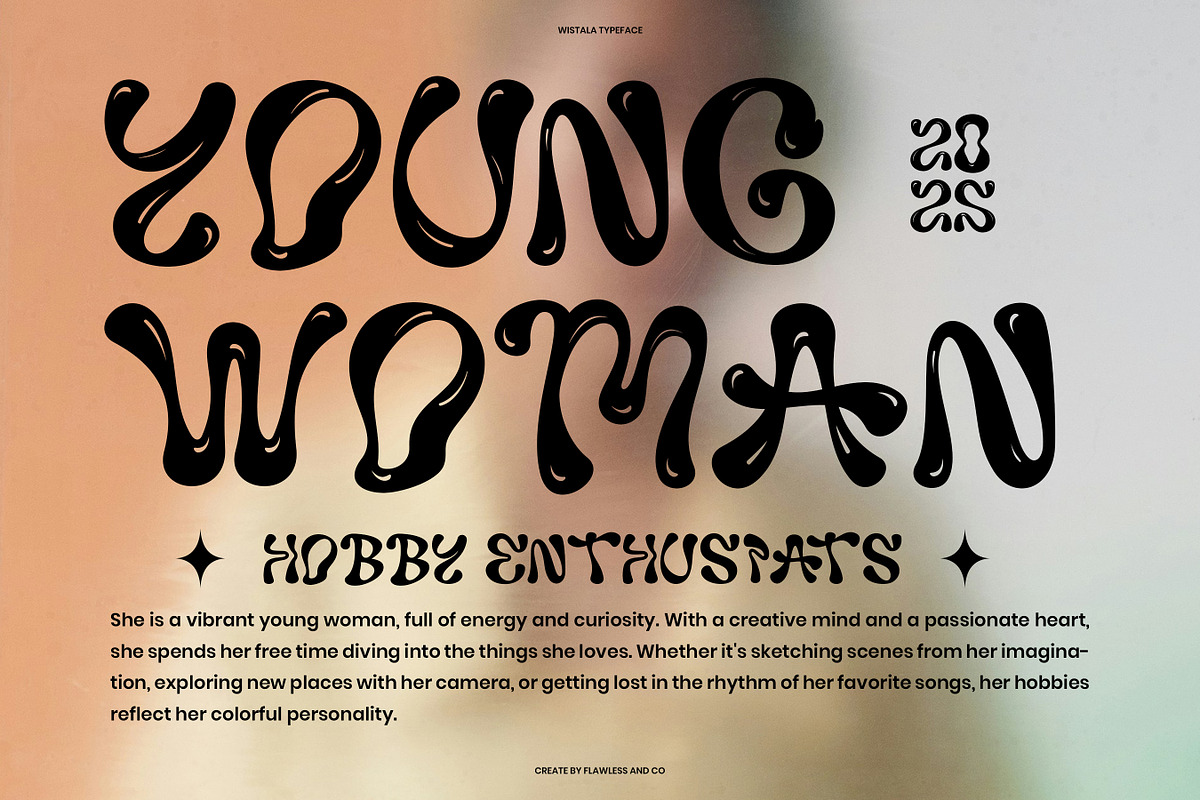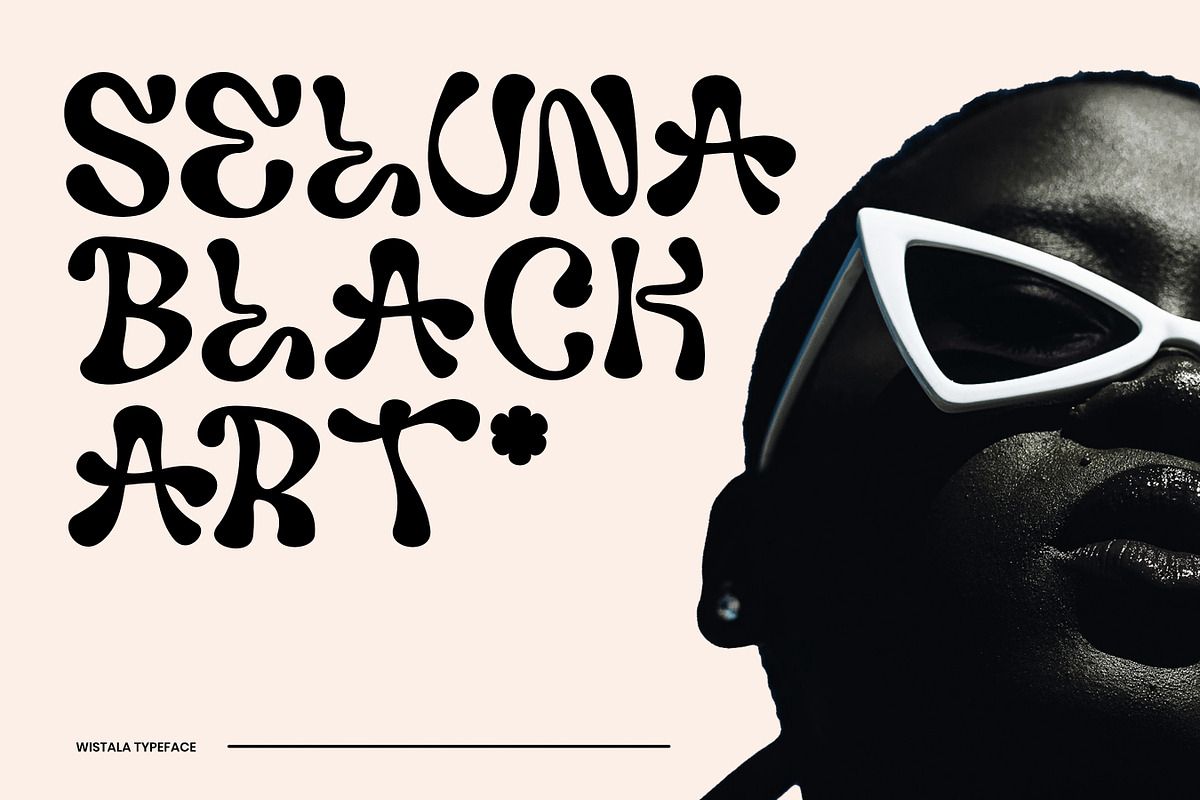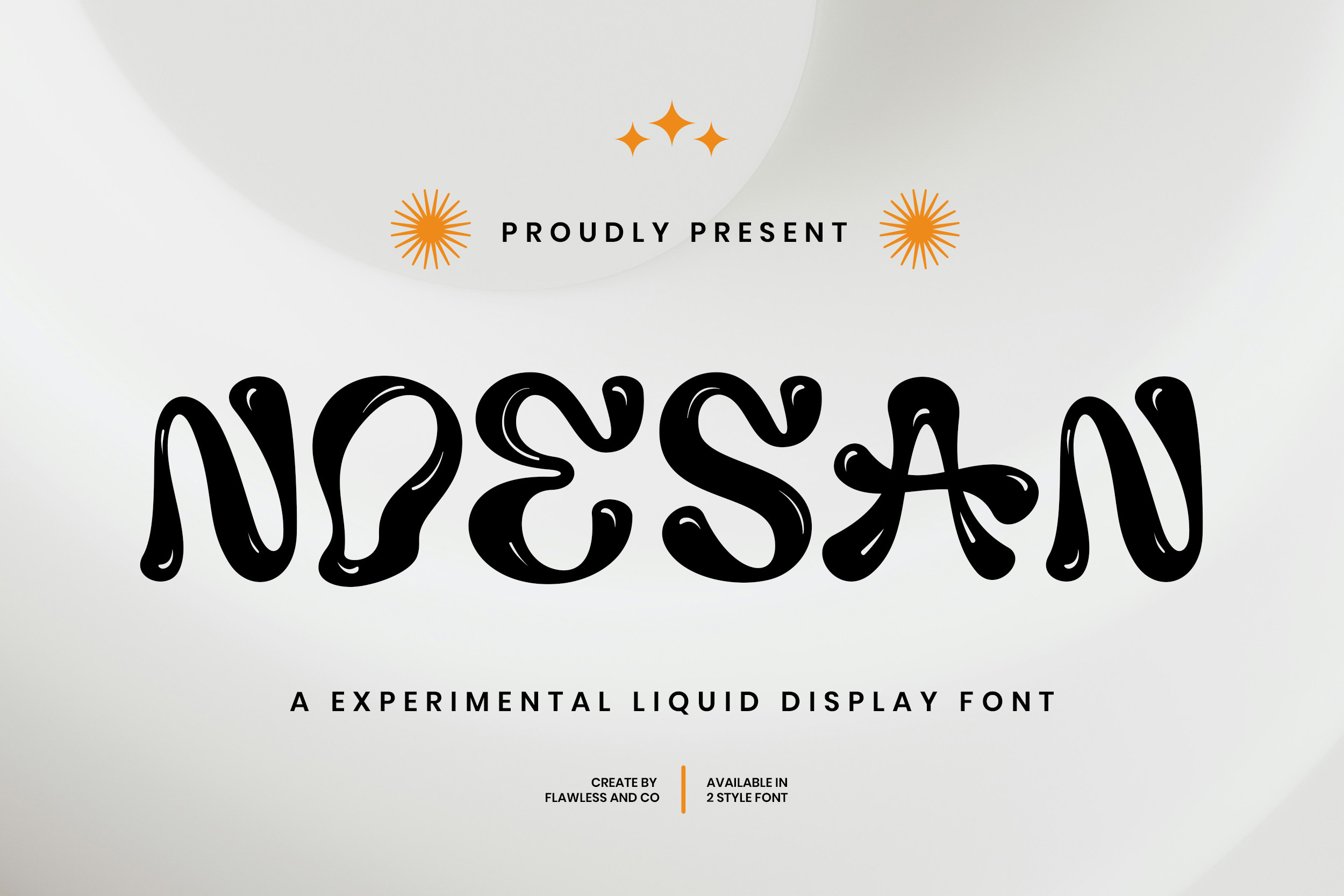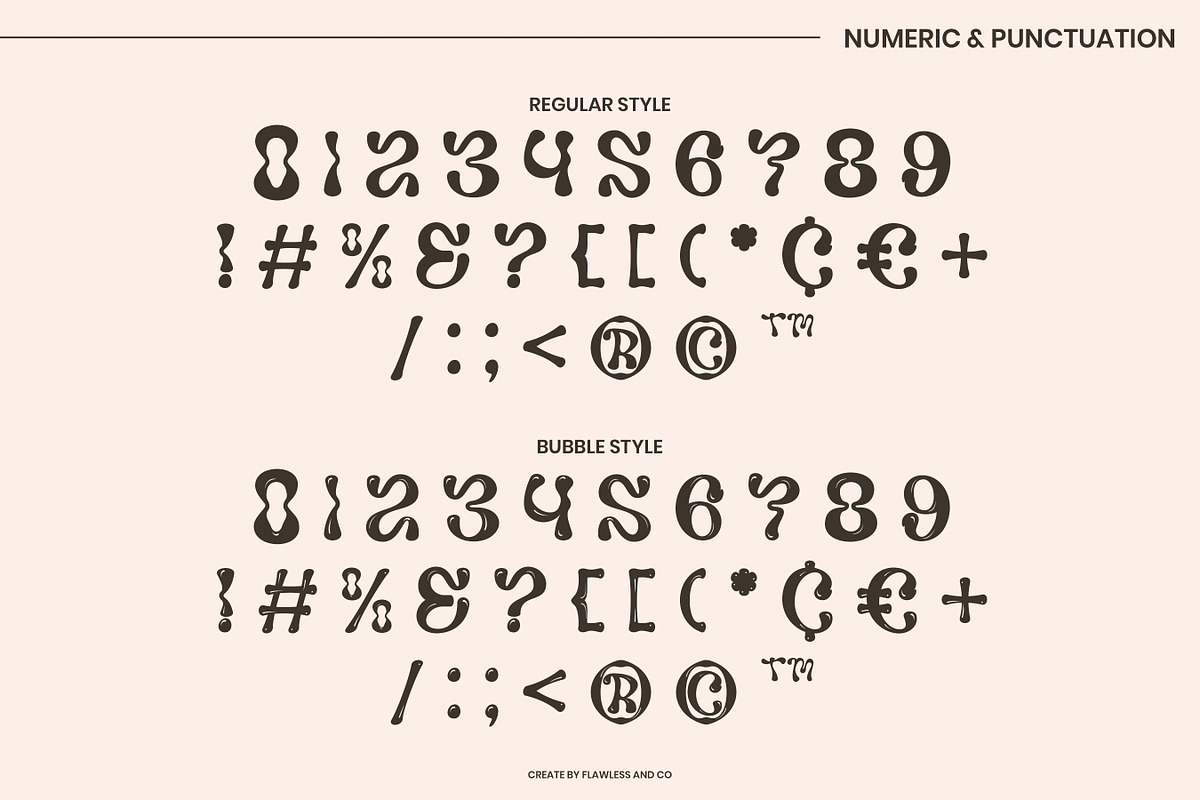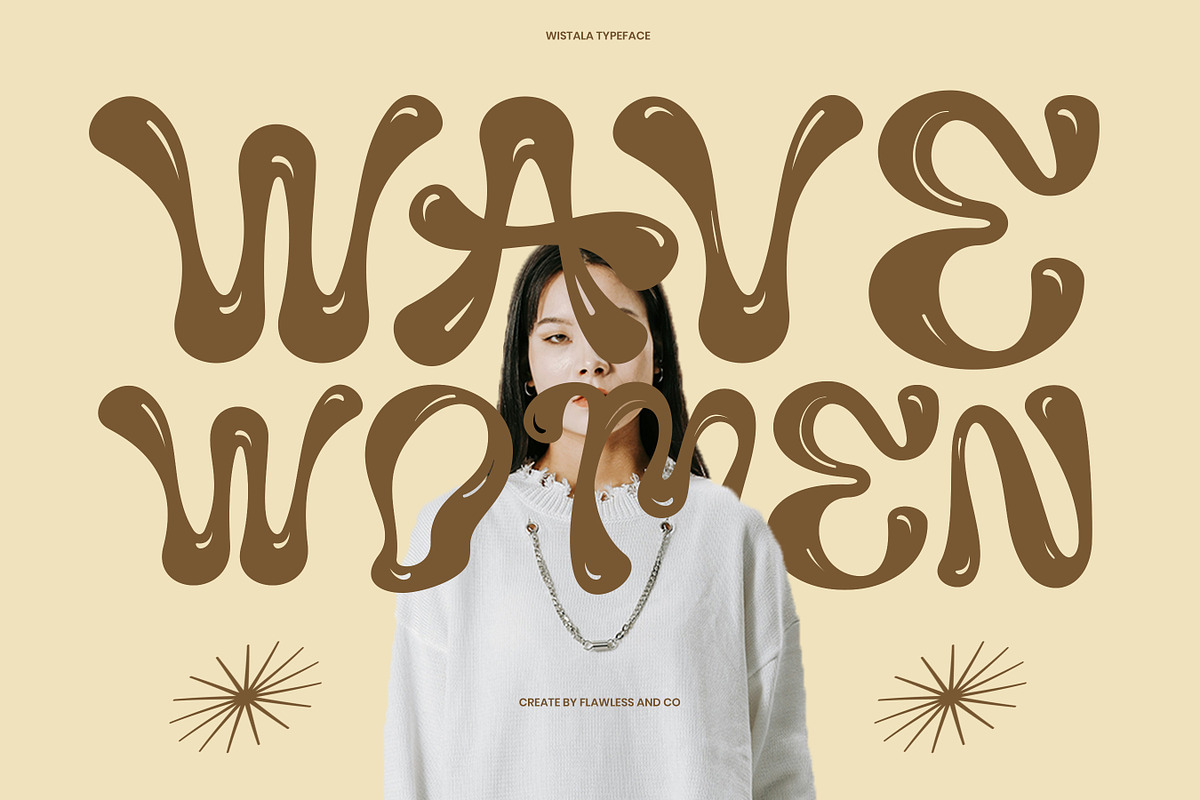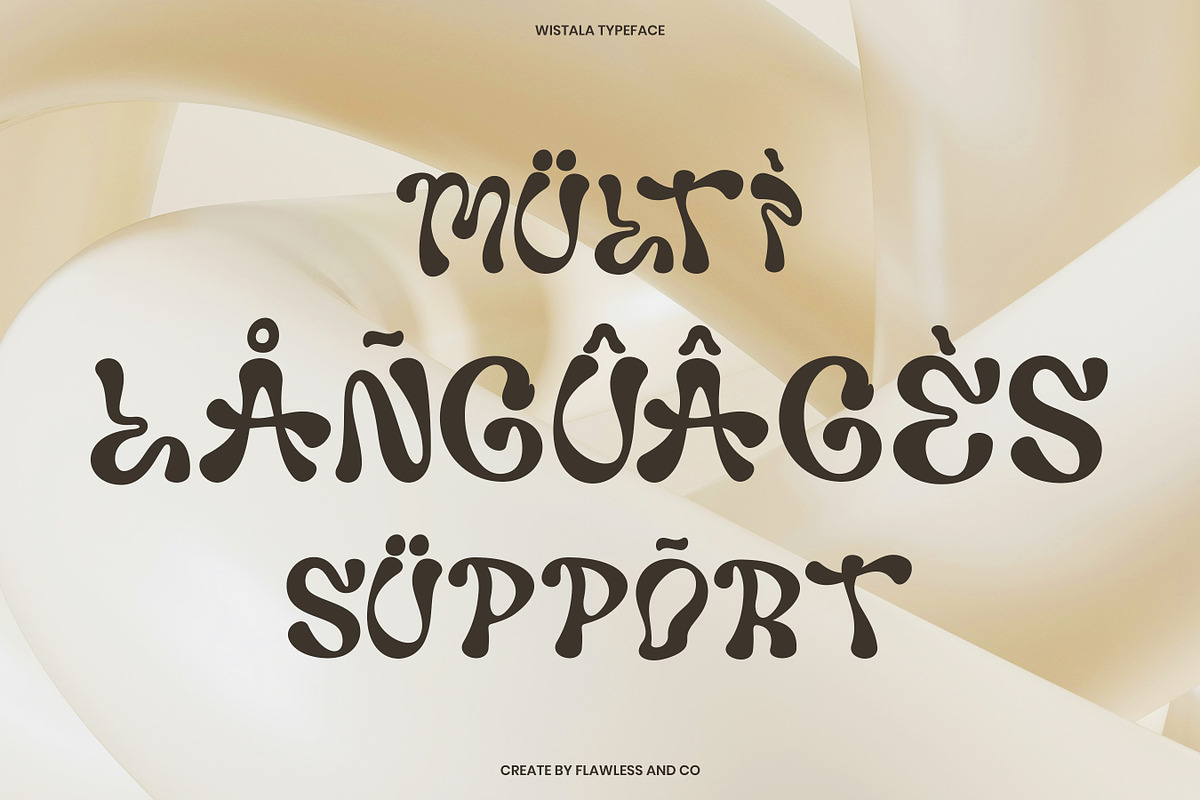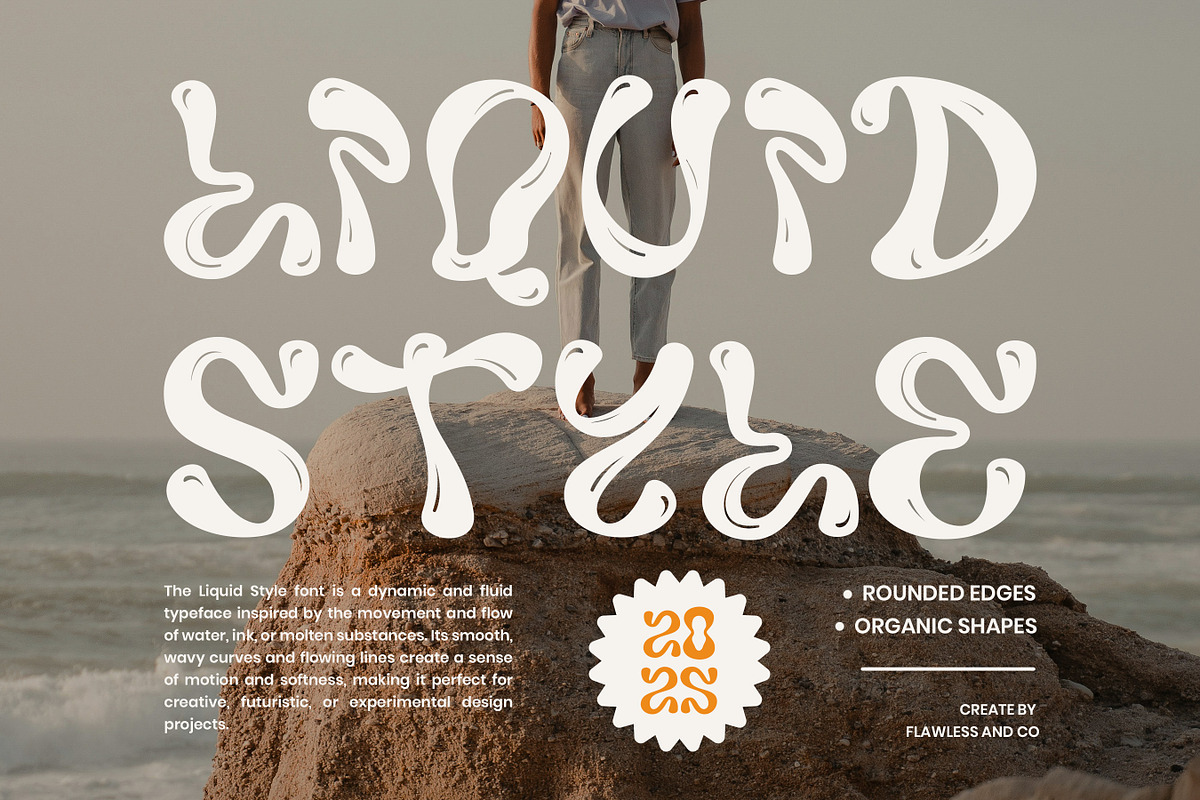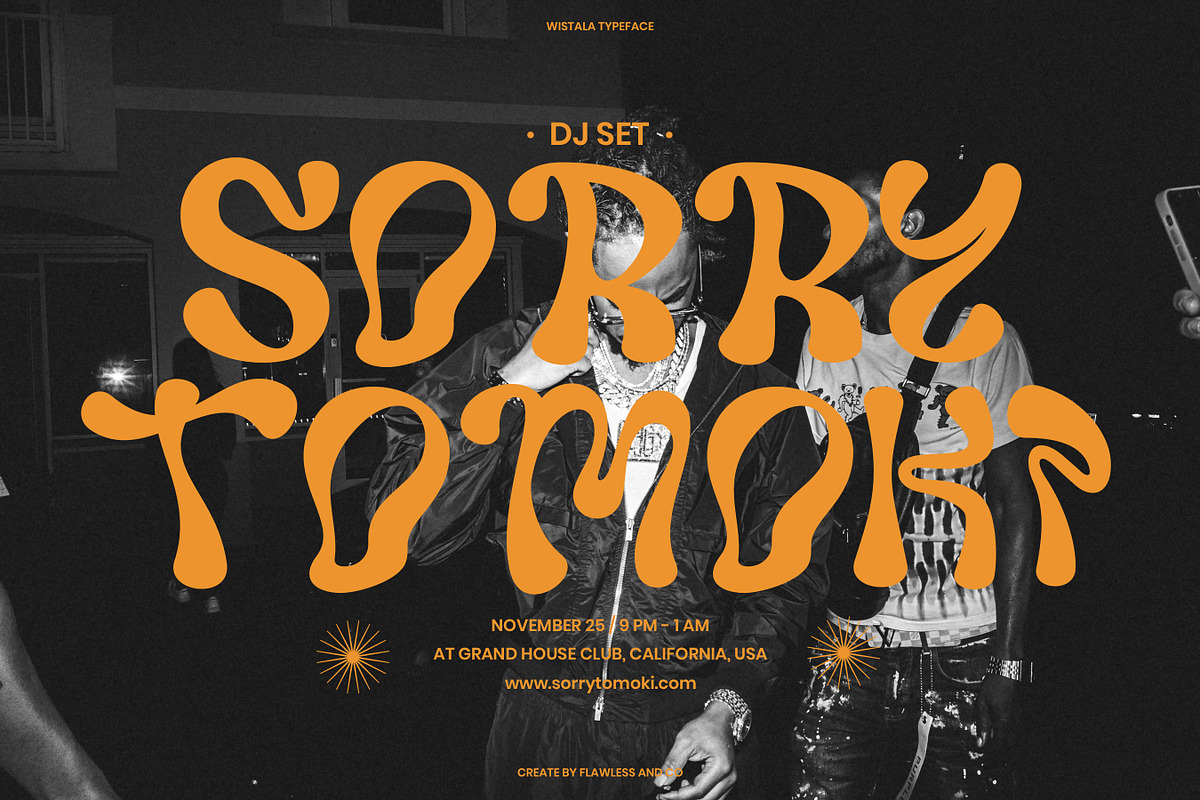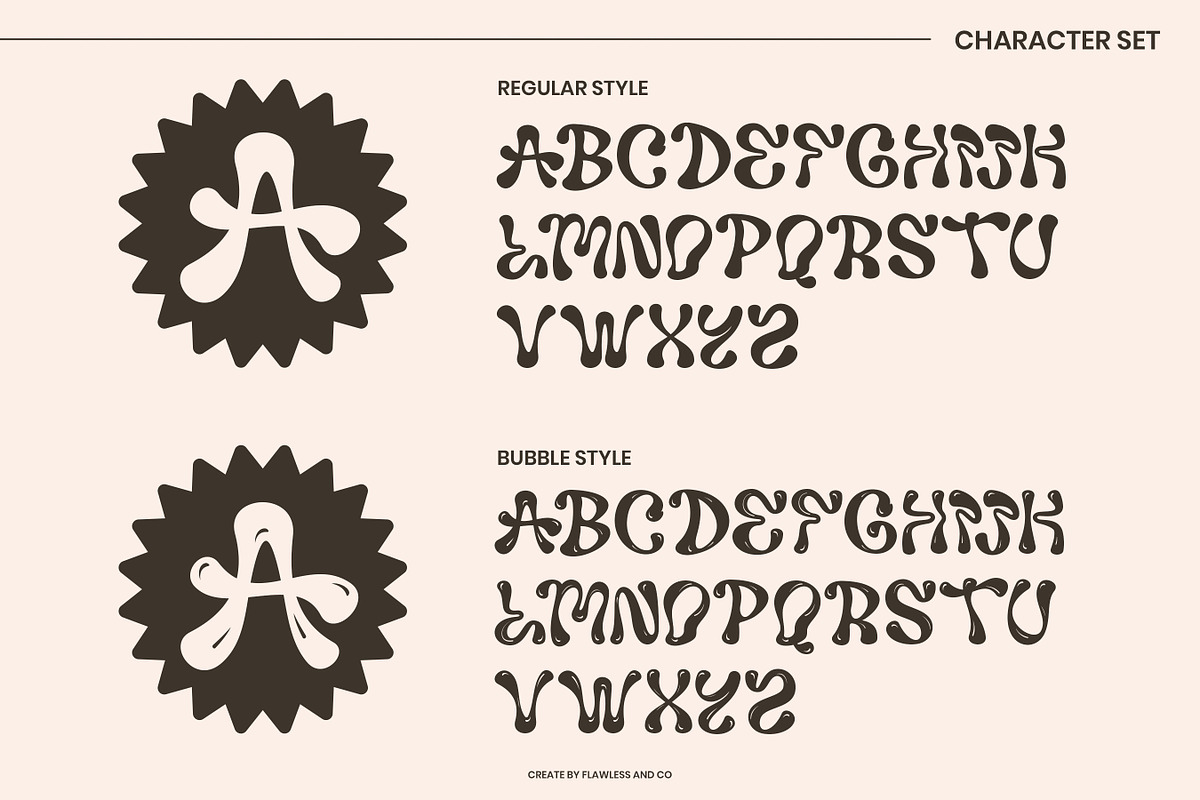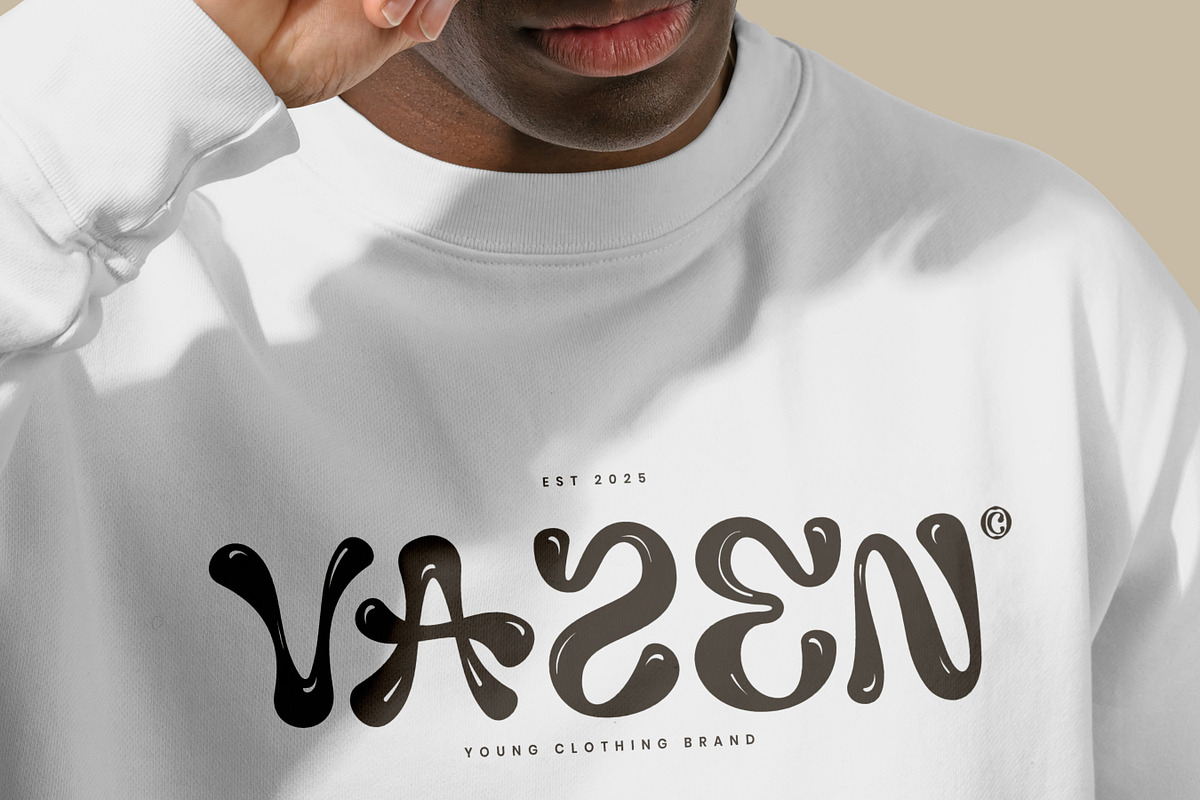
Noesan - Liquid Display Font
NOESAN – A Bold Experimental Liquid Display Font
Noesan is a one-of-a-kind experimental display font inspired by the unpredictable fluidity of liquid shapes. It blends bold strokes with dripping details, giving your typography an eccentric, playful, and artistic vibe. With two distinct styles, NOESAN offers creative freedom for a wide range of design needs. Whether you're creating a music poster, fashion visual, DJ promo, or edgy branding, this font brings a unique energy that stands out in any crowd. NOESAN was crafted for fearless designers who want to push boundaries and make a loud visual statement.
Who Should Use NOESAN?
NOESAN is perfect for designers, visual artists, and brands who crave bold, unconventional, and expressive typography. If you're working on music event promos, streetwear branding, creative agency visuals, edgy social media content, or anything that needs a liquid-modern twist — NOESAN is made for you. It's a go-to choice for creatives who aren’t afraid to stand out.
A Must-Have Font for Brand and Logo Creators and Designers
NOESAN is the ultimate choice for creatives looking to break the mold. With its bold curves and liquid-inspired aesthetic, this font brings a futuristic, rebellious vibe to any branding or logo project. Whether you're designing for fashion, music, digital media, or youth culture, NOESAN gives your visuals a distinctive and unforgettable edge.
Why Choose NOESAN for Brand and Logo Projects?
NOESAN stands out with its unique liquid-style strokes and bold display structure, offering a fresh, edgy feel perfect for modern branding. It blends experimental design with high visual impact, making it ideal for brands that want to appear daring, innovative, and unforgettable. Whether used for logos, headlines, or merchandise, NOESAN adds personality and presence to every project.
Suitable For:
NOESAN is ideal for logo design, creative branding, streetwear labels, music or entertainment projects, bold packaging, merchandise design, poster layouts, and any visual work that needs a strong, standout typeface with a liquid, futuristic vibe.